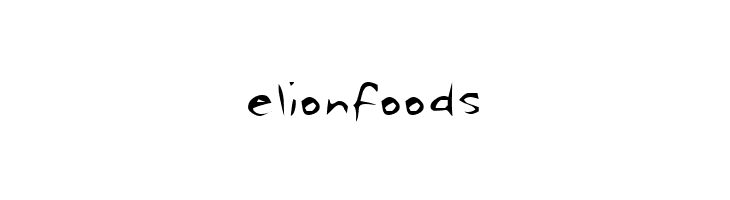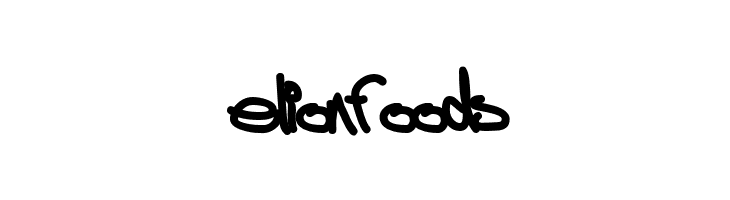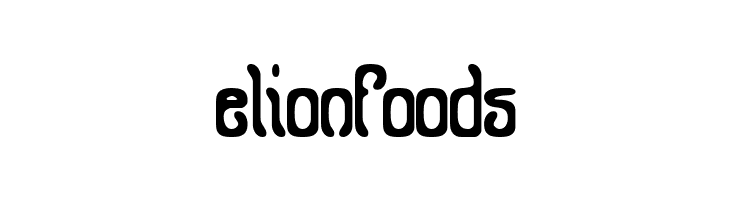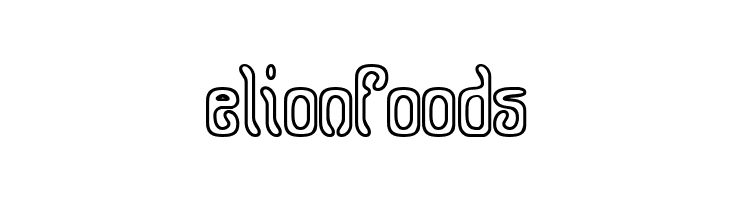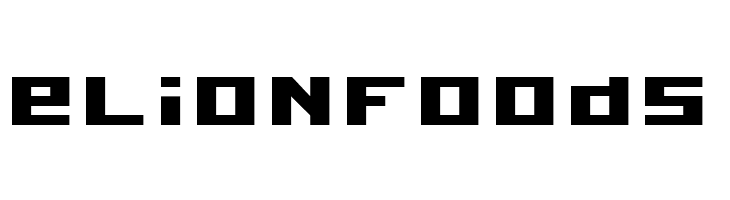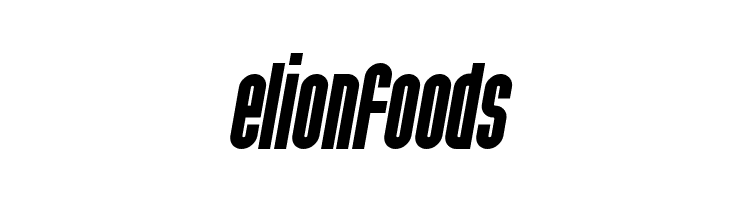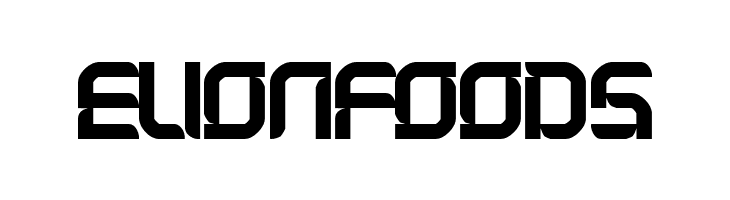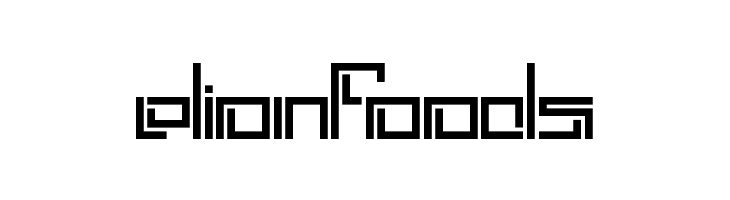
A dynamic, angular font with a modern, handwritten feel.
A bold, playful handwritten font with thick strokes and dynamic flow.
A bold, playful font with rounded edges and a unique, bubbly appearance.
A bold, outline-style font with a playful and modern aesthetic.
A bold, geometric font with a modern, digital aesthetic.
A bold, italicized font with thick strokes and a modern, dynamic style.
A bold, futuristic font with geometric shapes and sharp angles.
Clean, geometric sans-serif font with high legibility.
A bold, angular font with a modern, edgy style.
A geometric, linear font with bold, angular lines and a futuristic aesthetic.